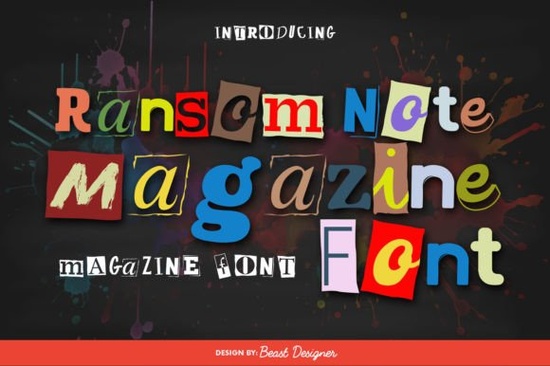
The Ransom Note Magazine Font is a display typeface built from letters that look like they were cut from old magazines and newspapers. If you've ever seen a classic ransom note in a movie, you already know the style mismatched sizes, mixed typefaces, and an intentionally chaotic layout. This font captures that effect digitally, giving designers a quick way to add grit, vintage energy, or a rebellious edge to any project without manually cutting and pasting letterforms.
What Exactly Is a Ransom Note Style Font?
A ransom note font mimics the look of hand-assembled letters from printed materials. Each character appears slightly different from the next some bold, some thin, some uppercase, some lowercase as if they were individually clipped from different sources. Unlike a clean Kabisat Font that leans on consistency and structure, this typeface deliberately breaks the rules.
That uneven, collage-like quality is what makes it stand out. It immediately signals to viewers that something edgy, playful, or offbeat is going on. It's not meant for body text or formal documents. It's a display font built for headlines, titles, and short bursts of text where personality matters more than readability at small sizes.
Who Uses This Type of Font?
You'd be surprised how many creative fields reach for this kind of typeface. Here are some common uses:
- Zine and magazine designers who want a DIY, cut-and-paste aesthetic for covers or feature spreads.
- Print-on-demand sellers creating quirky t-shirt slogans, poster quotes, or sticker packs with a punk or retro vibe.
- Social media creators designing Instagram posts, story templates, or YouTube thumbnails that need to grab attention fast.
- Small businesses branding escape rooms, thriller podcasts, indie bands, or vintage-themed shops.
- Scrapbookers and crafters who want a handmade, imperfect feel in digital layouts.
What Kind of Projects Does It Work Best For?
This font shines in short, high-impact text situations. Think headlines, logos, event posters, packaging, and merchandise. The mixed letter sizes and styles give each word a lot of visual texture, so even a single word can carry a strong design presence.
Some specific project ideas:
- Movie night or mystery party invitations instant atmosphere without extra graphic work.
- Band merchandise or album art especially for punk, garage rock, or indie genres.
- Blog headers and Pinterest pins that need a bold, unconventional look.
- Greeting cards with a humorous or sarcastic tone.
- Digital stickers and planner inserts for a handmade aesthetic.
How Do You Use a Ransom Note Font Without Overdoing It?
Because the style is already visually loud, restraint goes a long way. A few practical tips:
- Use it for headlines only. Pair it with a simple sans-serif or serif body font so the layout doesn't feel overwhelming.
- Keep the text short. One to five words works best. Longer sentences can become hard to read.
- Experiment with color. Each letter can be a different color in design software, which enhances the collage effect even further.
- Layer it with textures. Adding a paper grain, torn edge, or crumpled background makes the ransom note aesthetic feel more authentic.
- Test at different sizes. What looks great on a poster might not work on a small sticker always check readability.
Quick Checklist Before You Start Designing
- ✅ Decide on your use case poster, t-shirt, social media, or packaging.
- ✅ Choose a complementary body font to pair with it (keep it simple).
- ✅ Limit ransom note styling to short text only.
- ✅ Test your design in both digital and print formats if applicable.
- ✅ Add texture or background elements to enhance the collage feel.